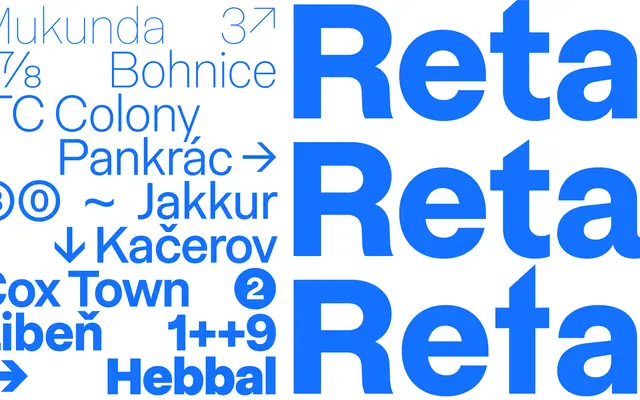
Retain
Leinster Type · Ramakrishna Manda & Troy Leinster · 2025
Retain specimen from Leinster Type
A nine-weight grotesque sans with a variable axis and over ten stylistic sets, designed for use across interfaces, editorial work and identity systems.
Nine upright weights run from Hairline to Extra Bold, with a variable font unlocking additional steps between them. More than ten stylistic sets allow alternate letter shapes, a choice of round or square dots and subtle character variants, so the family can shift tone without changing its underlying structure. Extras include discretionary ligatures, case-sensitive punctuation, multiple figure sets, arrows, symbols and coverage for over 390 languages including Vietnamese.
Described by the foundry as a contemporary grotesque for everyday use, with upright-only weights, alternate letterforms and optical tuning across caption to headline sizes typical of the genre.